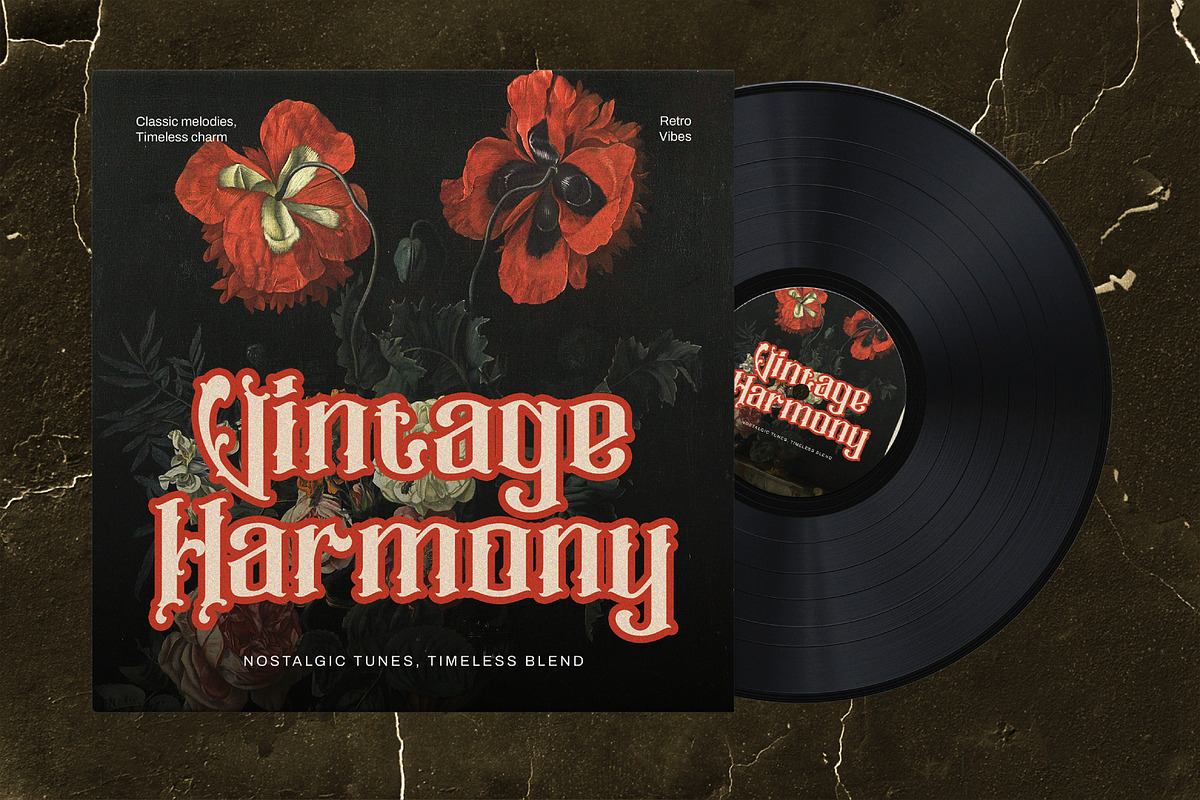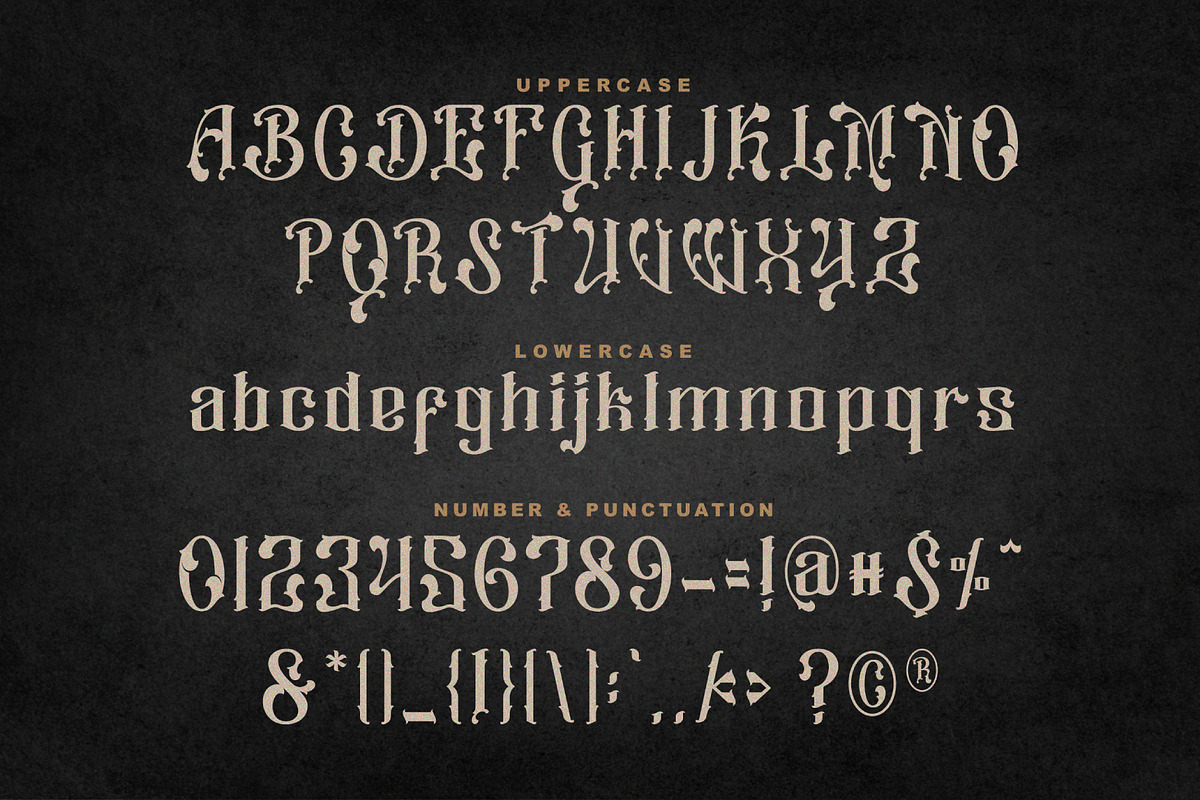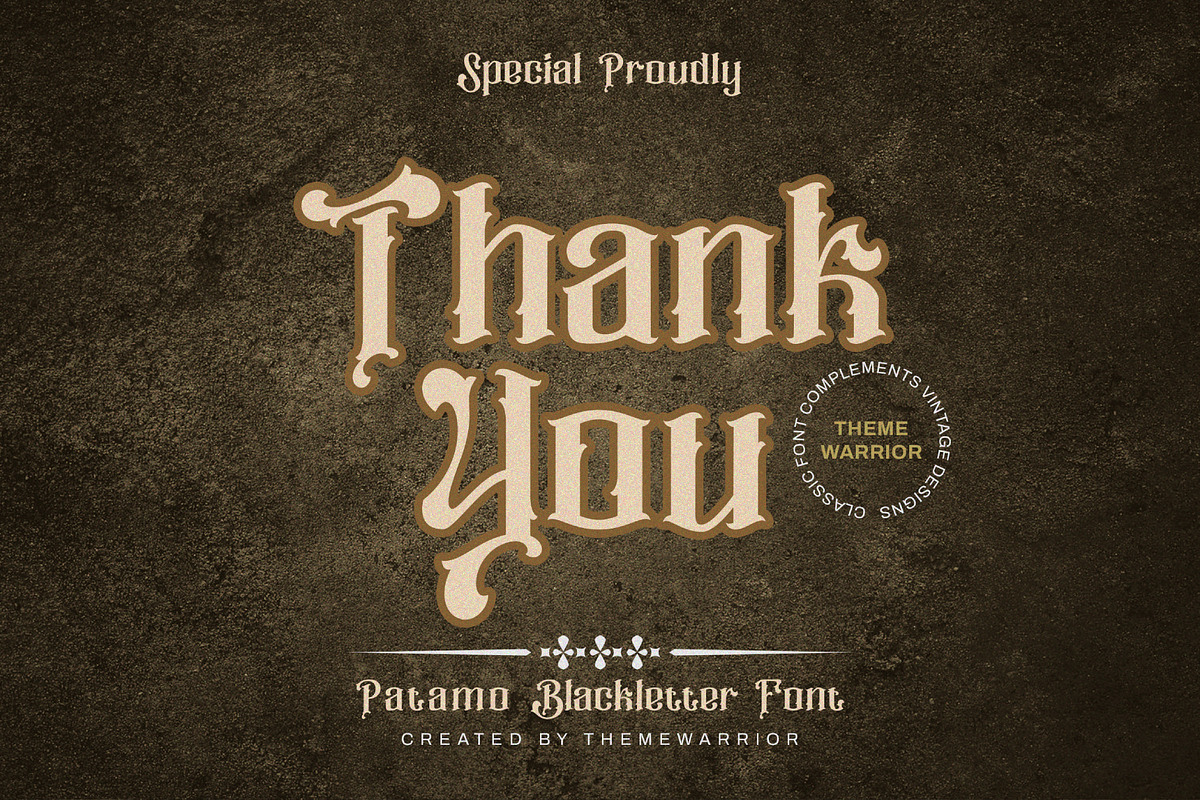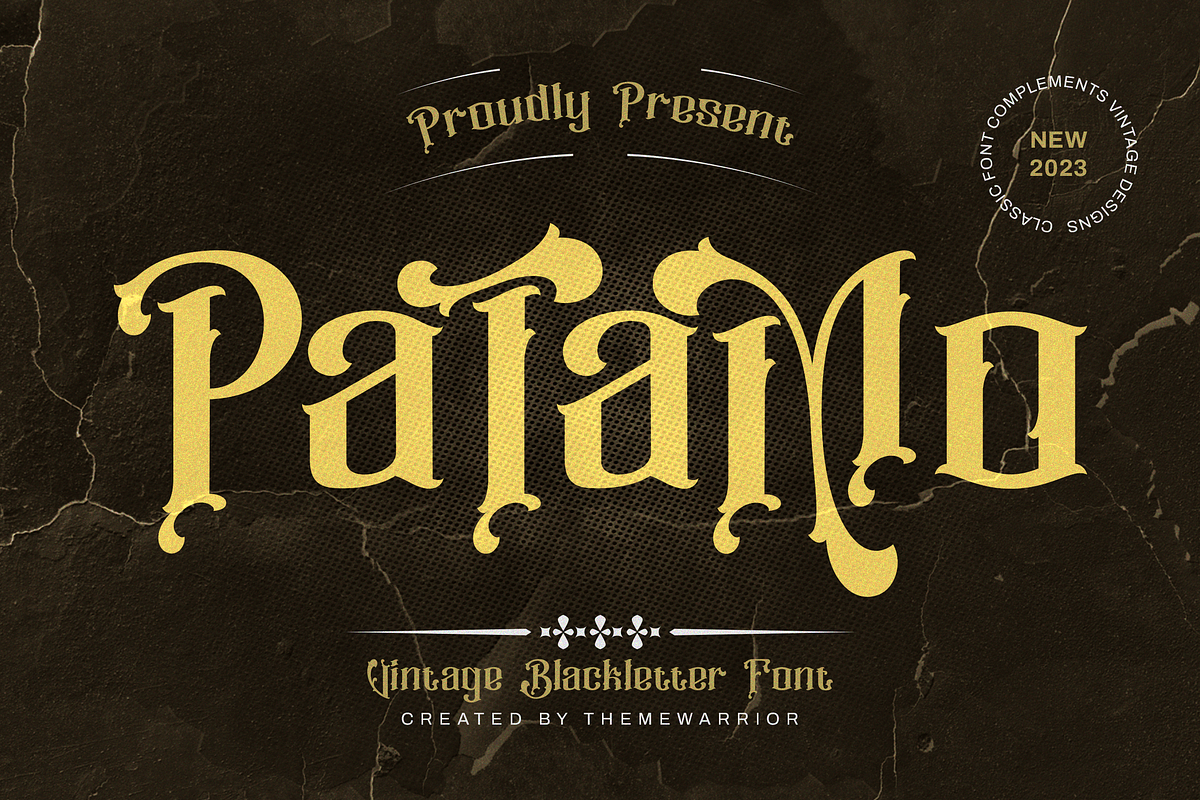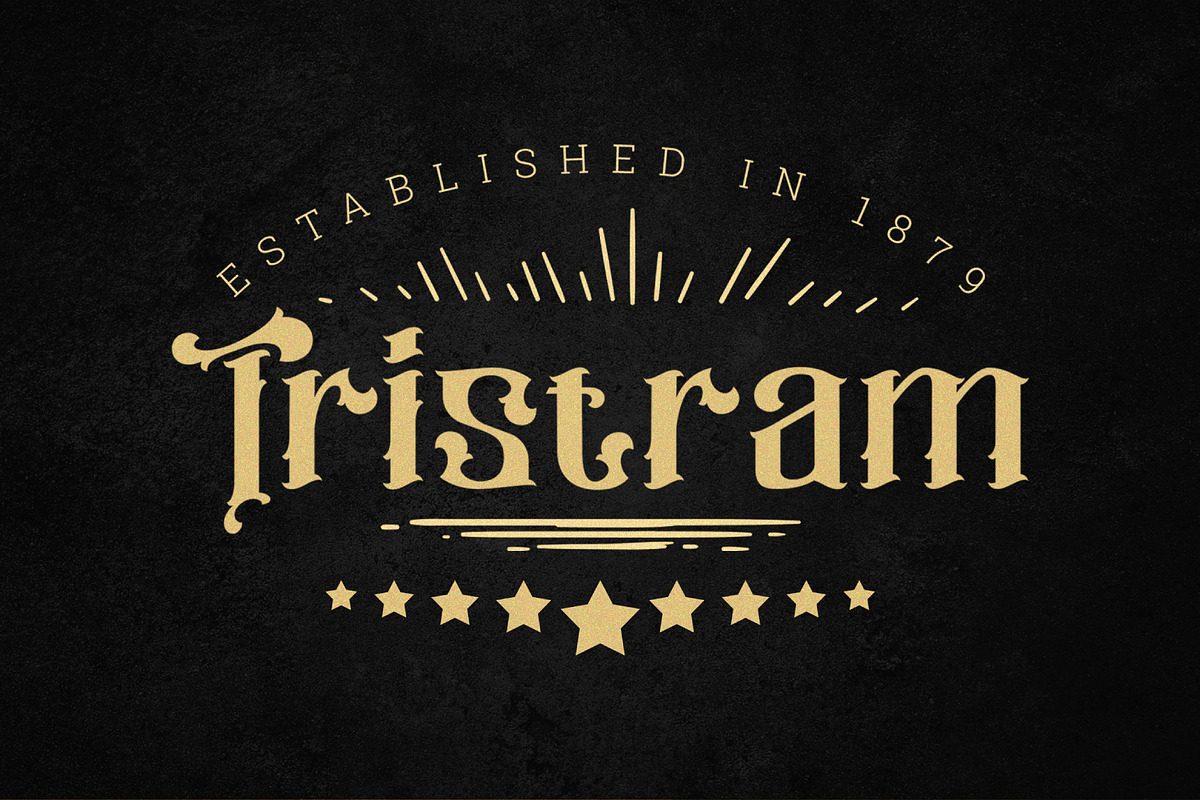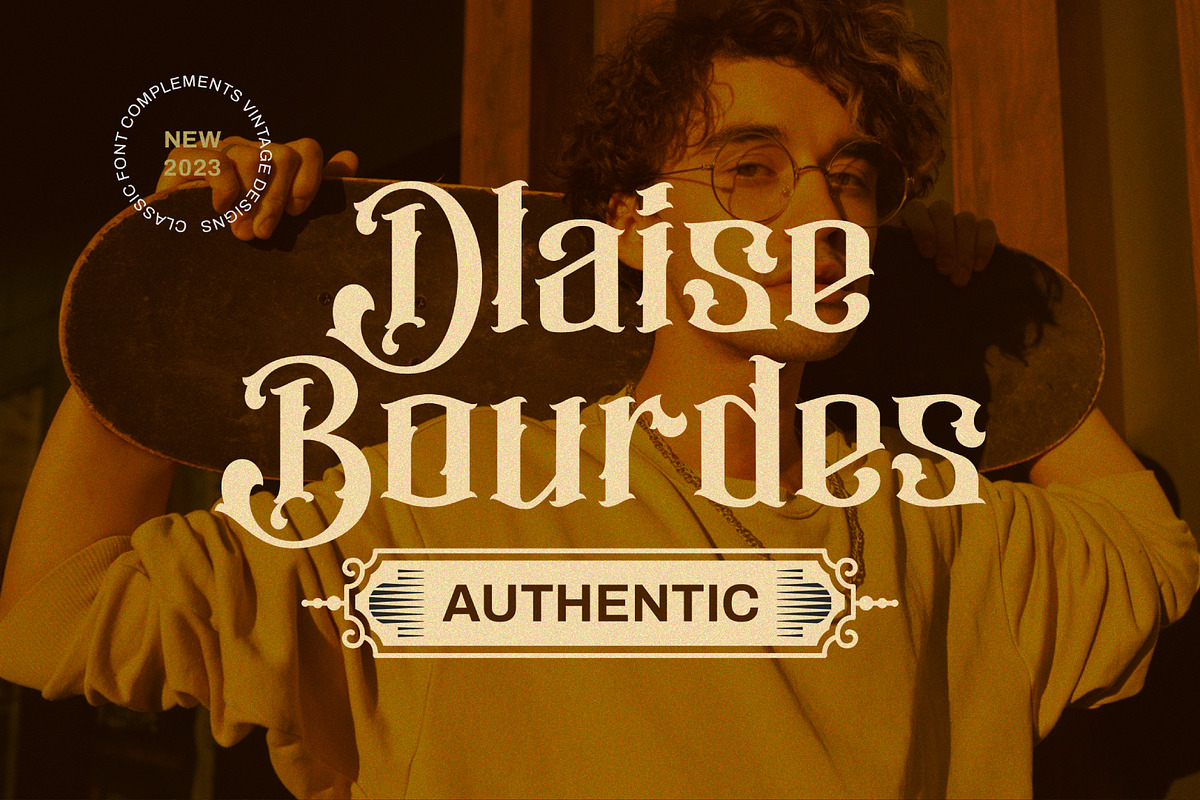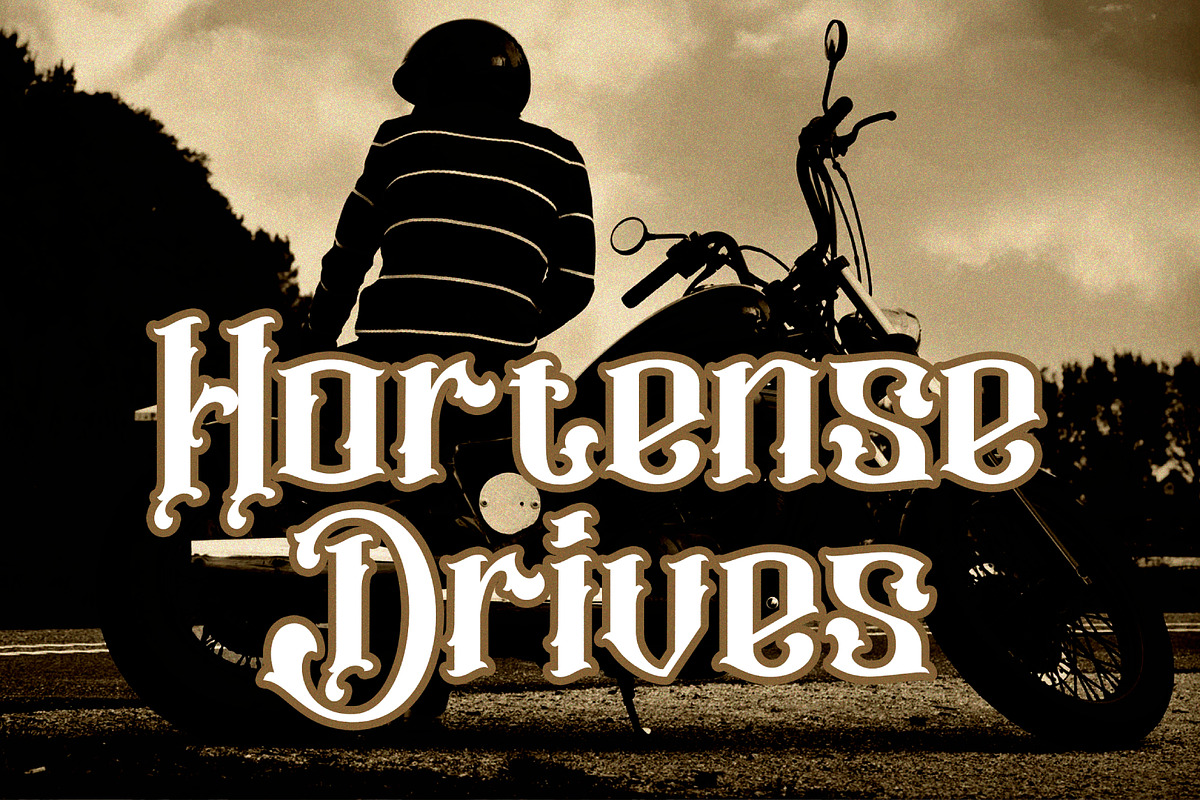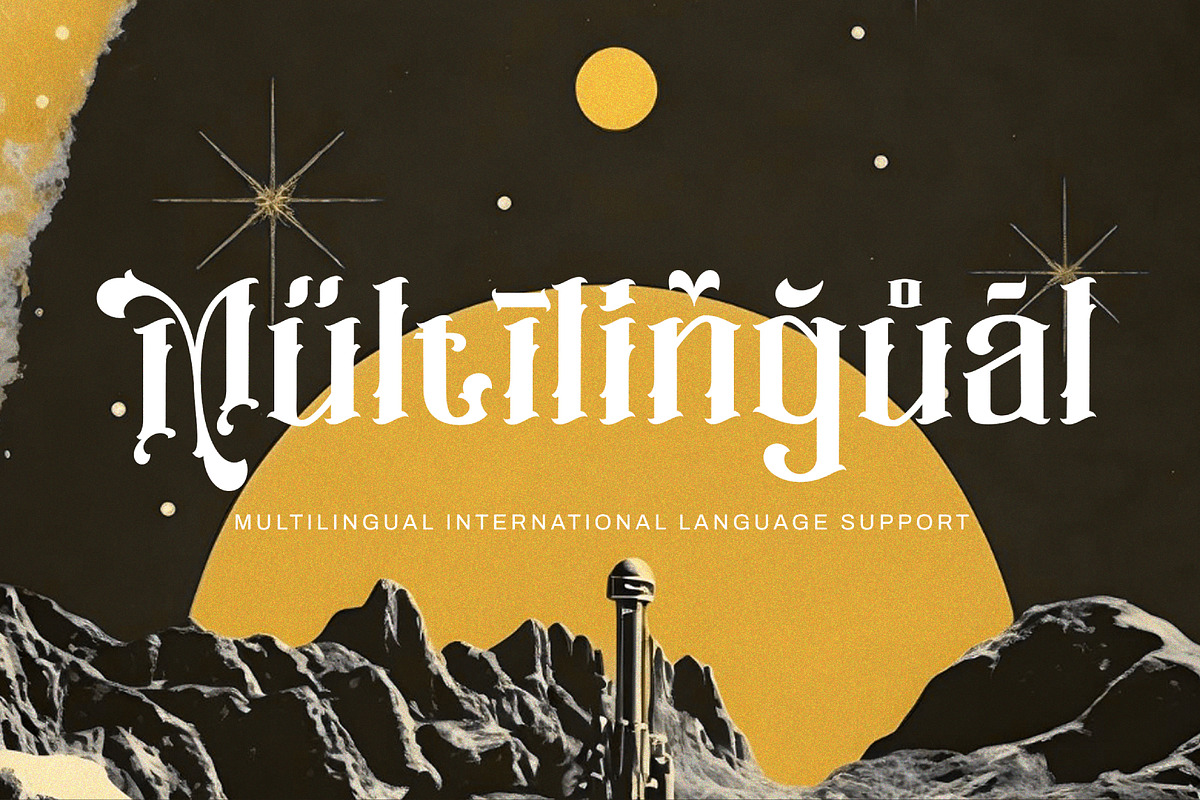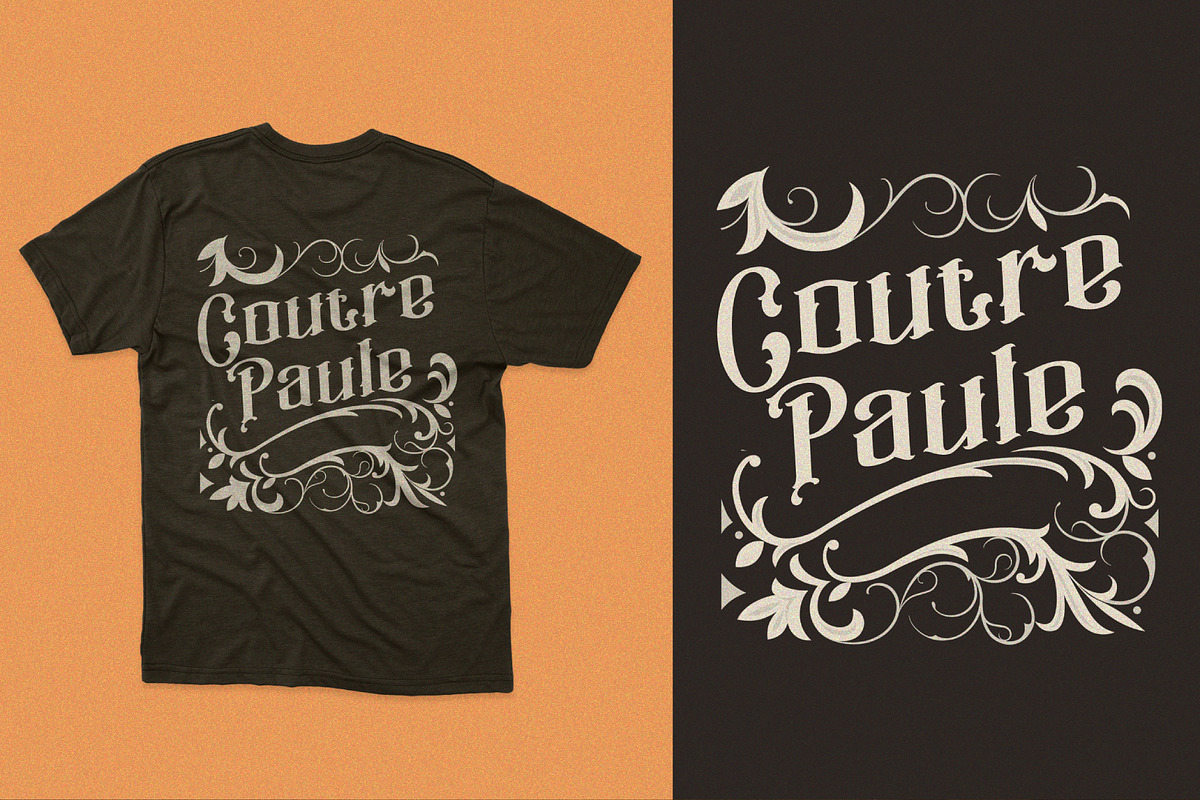
Patamo - Blackletter Font
Patamo is a blackletter font with a bit of vintage and retro style. The font is suitable to be use on motorcycle logo or badge designs, band logo, musical event advertisement, t-shirt, product packaging and more.